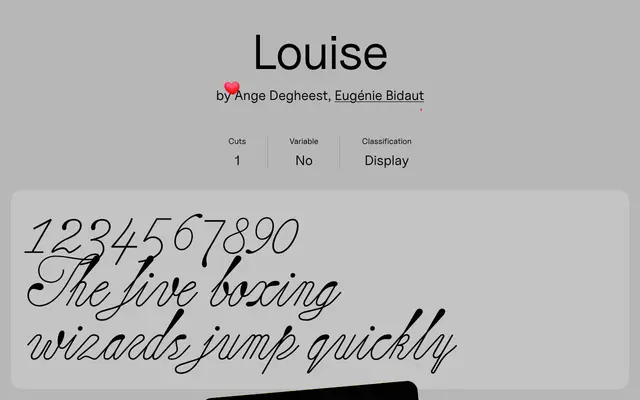
Louise
Uncut · Ange Degheest, Eugénie Bidaut
A single-cut display typeface by Ange Degheest and Eugénie Bidaut, available free under the SIL Open Font License for commercial and personal use.
Designed by Ange Degheest and Eugénie Bidaut, Louise is a display typeface offered in one cut with no variable axis. It is free to use in commercial and personal projects under the SIL Open Font License 1.1, which permits modification and redistribution with certain conditions. The single weight positions it as a straightforward choice for headline and expressive typographic contexts.
Classified directly as Display by the foundry; a single-cut decorative typeface suited to headline and expressive use rather than continuous text.